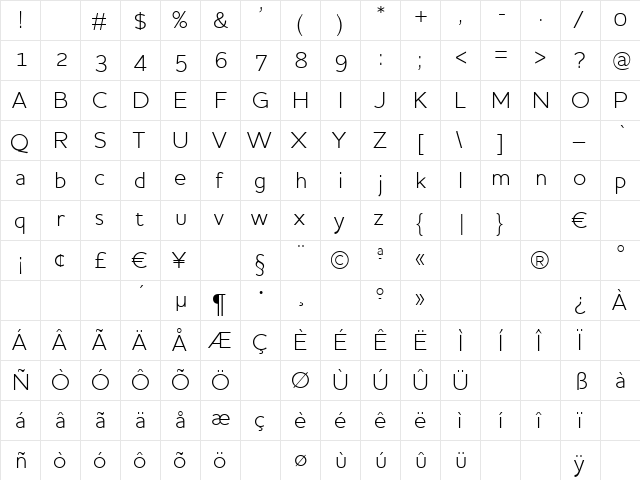
HouschkaAltLight Regular Font Preview
HouschkaAltLight Regular
HouschkaAltLight Regular Font Details
Design Context for HouschkaAltLight Typeface
HouschkaAltLight offers clean, dependable letterforms without strong stylistic allegiance, making it a practical choice for designers who need flexibility. Its slender proportions lend an understated elegance to any composition.